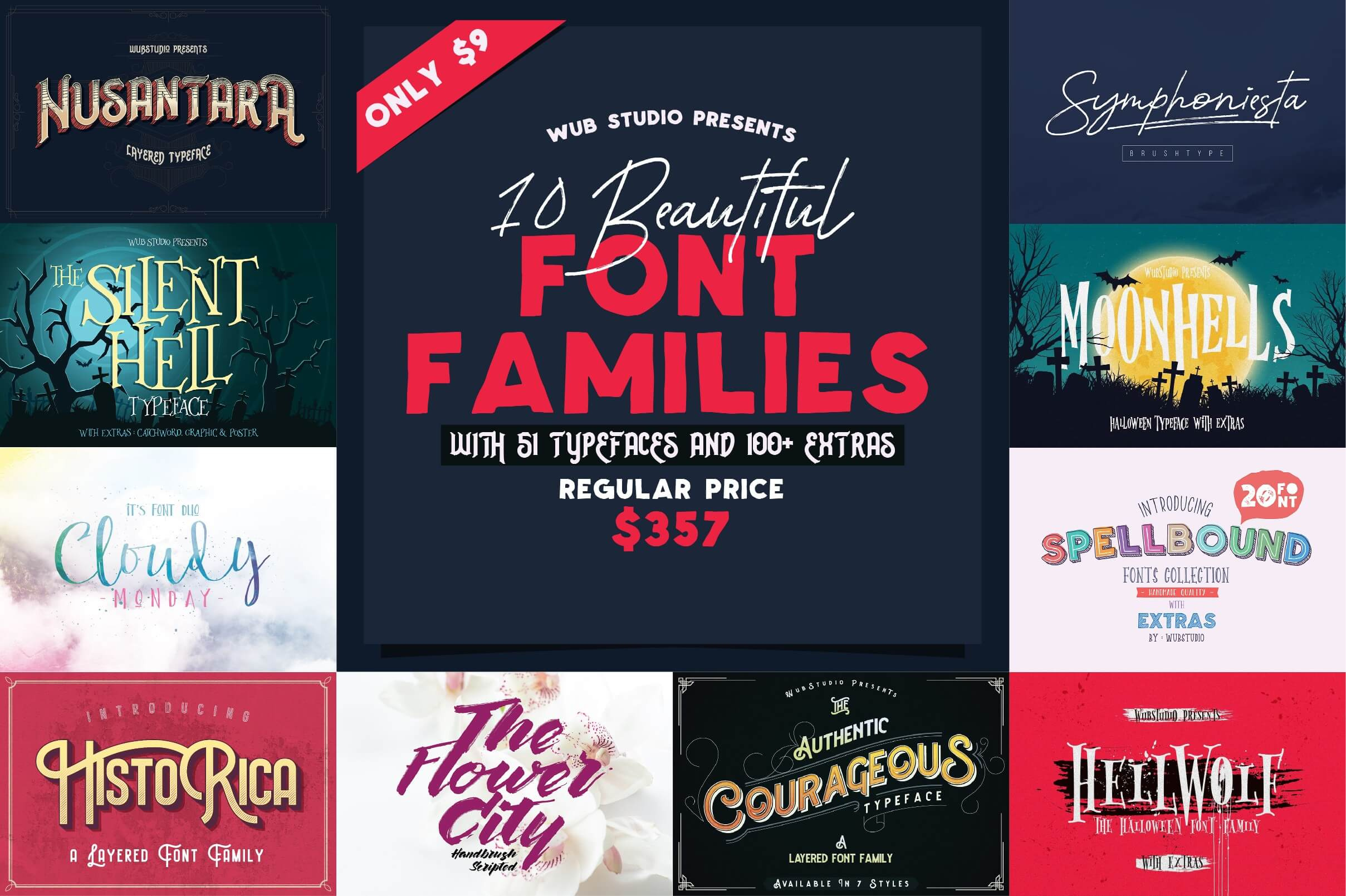
MightyDeals Wub Studio Font Bundle
MightyDeals Wub Studio Font Bundle is perfect for creative agency branding, dynamic studio marketing, versatile design projects, professional typography portfolios, comprehensive brand systems, creative workshop materials, design education resources, and adaptable visual communications.
What makes MightyDeals Wub Studio Font Bundle exciting is its creative versatility that embodies comprehensive design solutions and studio-quality excellence with bundle value and professional diversity. The font collection features varied letterforms with studio-crafted proportions and creative character variations that evoke design workshops, creative collaborations, and the dynamic flexibility of professional design studios and creative project diversity. Its distinctive bundle styling and studio appeal communicate creativity, professionalism, and design excellence, making every message feel crafted by design experts and touched by the comprehensive beauty of studio-quality typography and creative bundle value.
The MightyDeals Wub Studio Font Bundle family includes multiple fonts with uppercase and lowercase letters, numerals, punctuation marks, and special characters across various styles. Premium versions often feature additional weights and creative alternates that provide extensive typographic solutions for diverse creative and professional applications.
The creative character of MightyDeals Wub Studio Font Bundle makes it particularly valuable for design agencies, creative studios, and comprehensive brand projects. Its excellent variety ensures creative messaging and design communications remain fresh while maintaining the distinctive studio aesthetic that appeals to clients seeking professional design solutions and creative versatility.
Creative industry marketers appreciate how MightyDeals Wub Studio Font Bundle effortlessly conveys design authenticity and studio excellence. The bundle's diverse proportions and creative details create comprehensive brand materials that establish trust with audiences who value design quality, creative solutions, and the professional versatility of studio-crafted typography and creative design excellence.